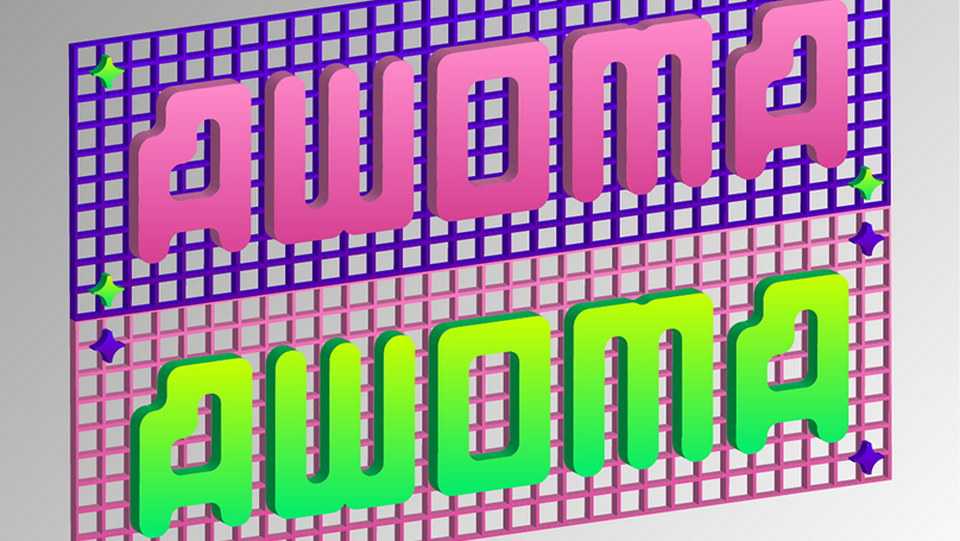
Download Awoma font, a simple rounded display typeface with a robotic and geometric yet soft and friendly feel. Awoma is perfect for posters, short texts, games, old school graphics and more.
Designer: Nicko Weidel